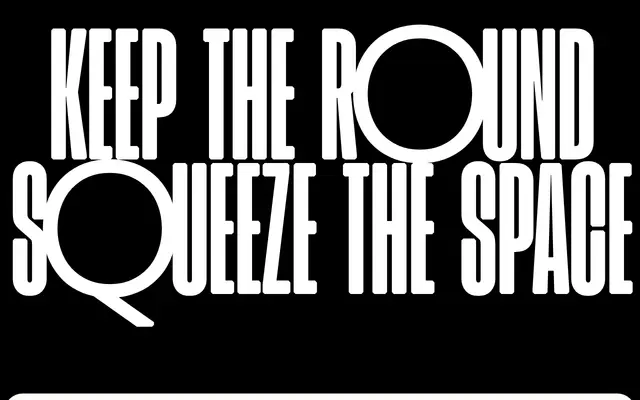
Round Ultra
A display-focused companion to Round, sharing identical letterforms but with tighter metrics suited to titles and large-scale editorial work.
Designed by Yoann Minet and published by Bureau Brut in 2025, Round Ultra is the display arm of the Round Collection, sitting alongside Round and Round Condensed. Its 14 styles span Light to Black with matching italics, and it shares round letterforms exactly with the text-optimised Round, making the two families interchangeable across different size registers. OpenType features include small caps, multiple figure sets, stylistic alternates for a, g and e, and an extensive range of enclosed letter and numeral sets.
A geometric sans with strongly rounded terminals and tight spacing designed for display and title use, sharing letterforms with the Round family but with condensed ultra-wide-spacing metrics optimised for large sizes.